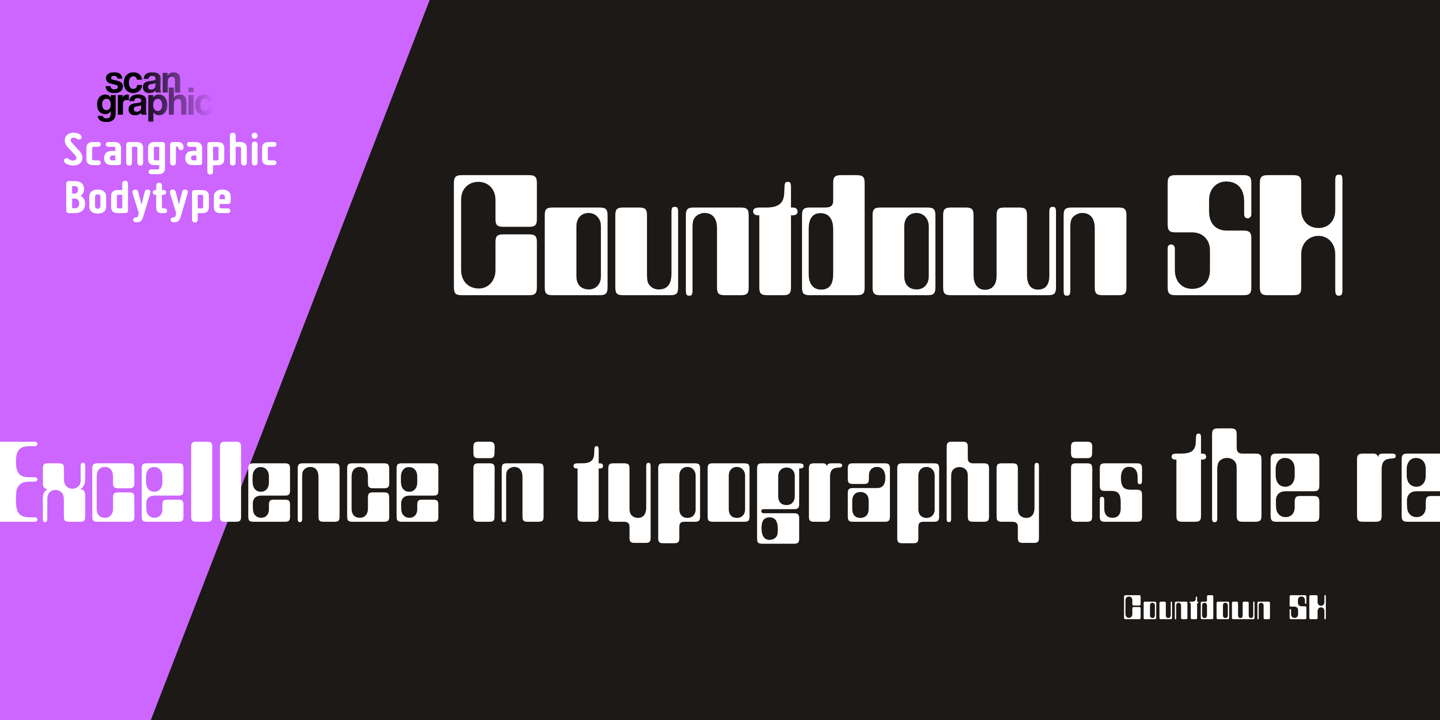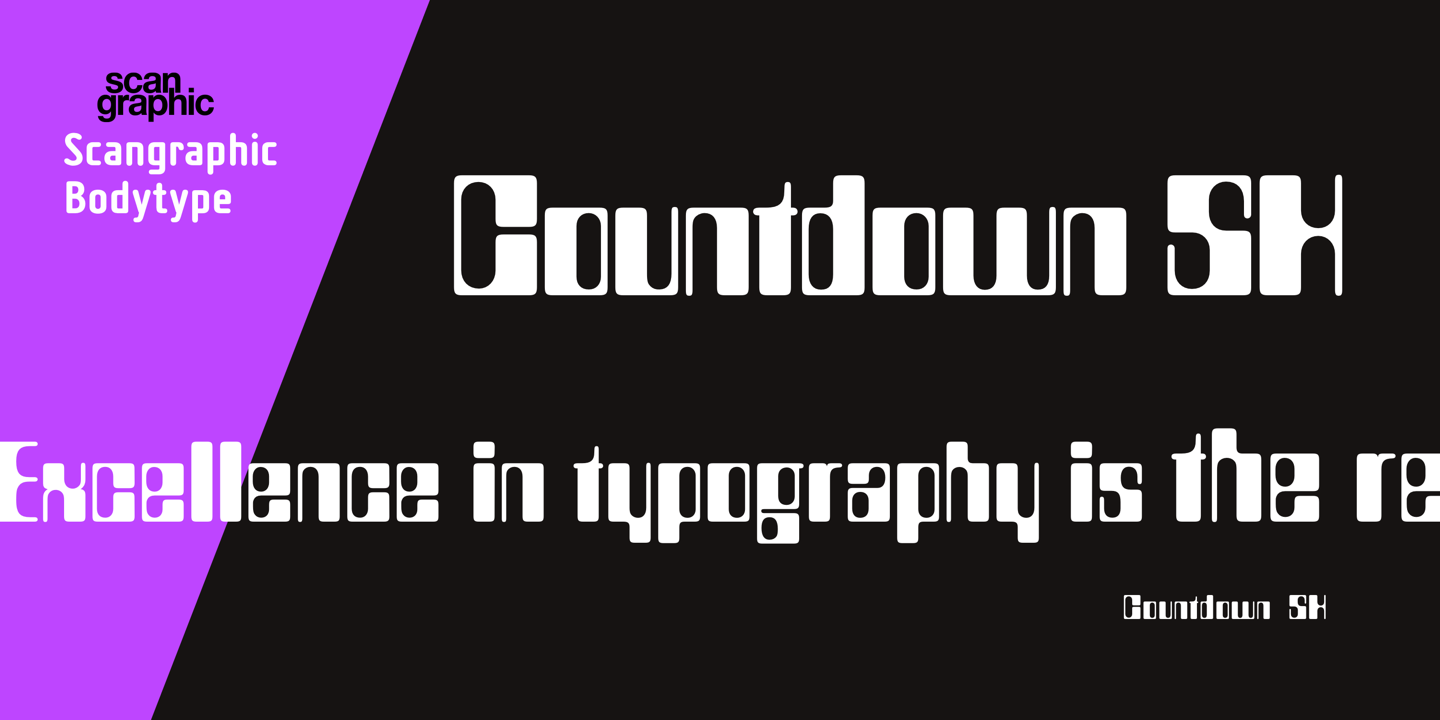
Countdown SH Regular
Since the release of these fonts most typefaces in the Scangraphic Type Collection appear in two versions. One is designed specifically for headline typesetting (SH: Scangraphic Headline Types) and one specifically for text typesetting (SB Scangraphic Bodytypes). The most obvious differentiation can be found in the spacing. That of the Bodytypes is adjusted for readability. That of the Headline Types is decidedly more narrow in order to do justice to the requirements of headline typesetting. The kerning tables, as well, have been individualized for each of these type varieties. In addition to the adjustment of spacing, there are also adjustments in the design. For the Bodytypes, fine spaces were created which prevented the smear effect on acute angles in small typesizes. For a number of Bodytypes, hairlines and serifs were thickened or the whole typeface was adjusted to meet the optical requirements for setting type in small sizes. For the German lower-case diacritical marks, all Headline Types complements contain alternative integrated accents which allow the compact setting of lower-case headlines.